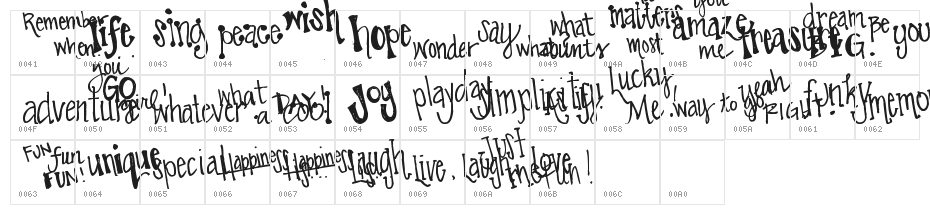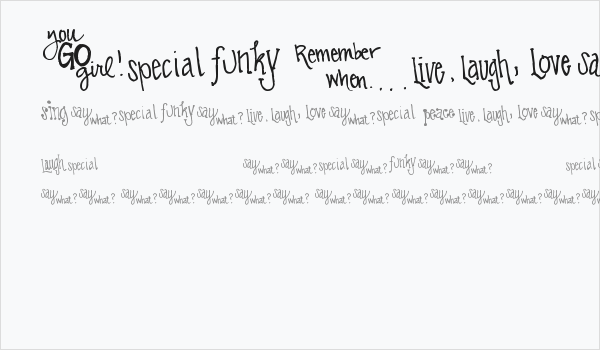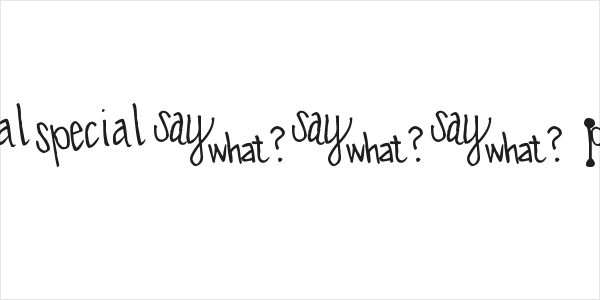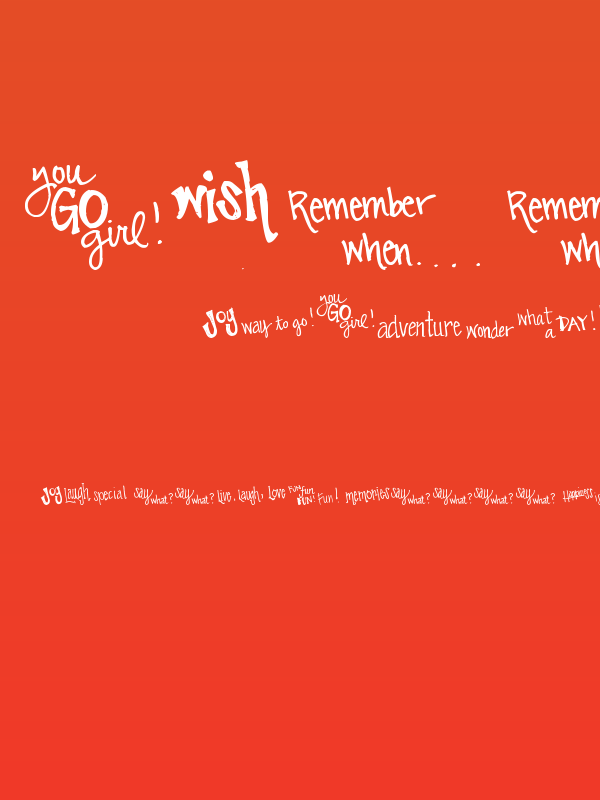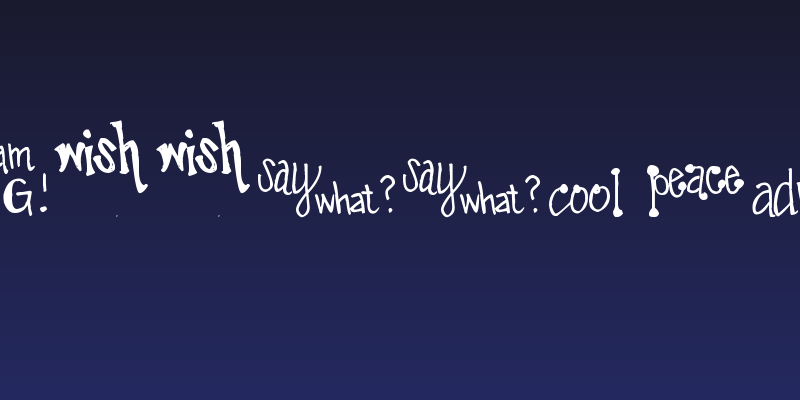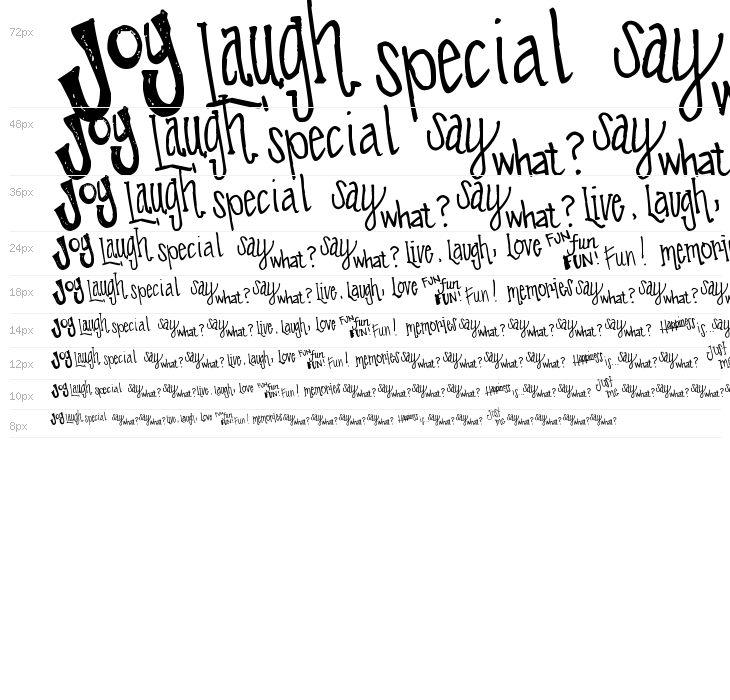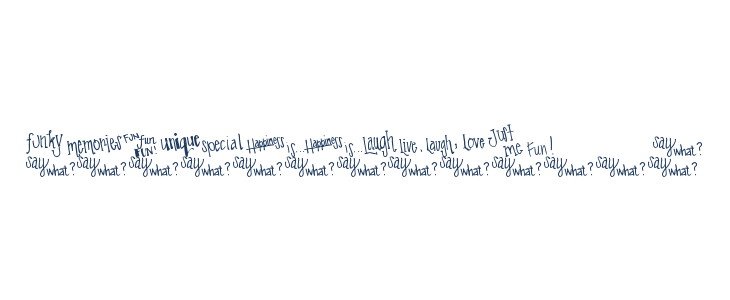
Pea Aimee's Doodles Font
Pea Aimee's Doodles Description
This whimsical and playful font features a hand-drawn, doodle-like style that exudes a sense of fun and creativity. The letters are irregular and vary in size, giving it a lively and dynamic appearance. The font includes a mix of uppercase and lowercase letters, numbers, and a variety of special characters. Its unique and quirky design makes it perfect for projects that require a personal touch or a casual, informal vibe. The strokes are uneven, adding to the hand-crafted feel, and the overall look is both charming and approachable.
Use CaseLogos, Headlines, Informal text
Proposed ProjectsIdeal for greeting cards, children's book illustrations, scrapbooking, and playful branding projects.